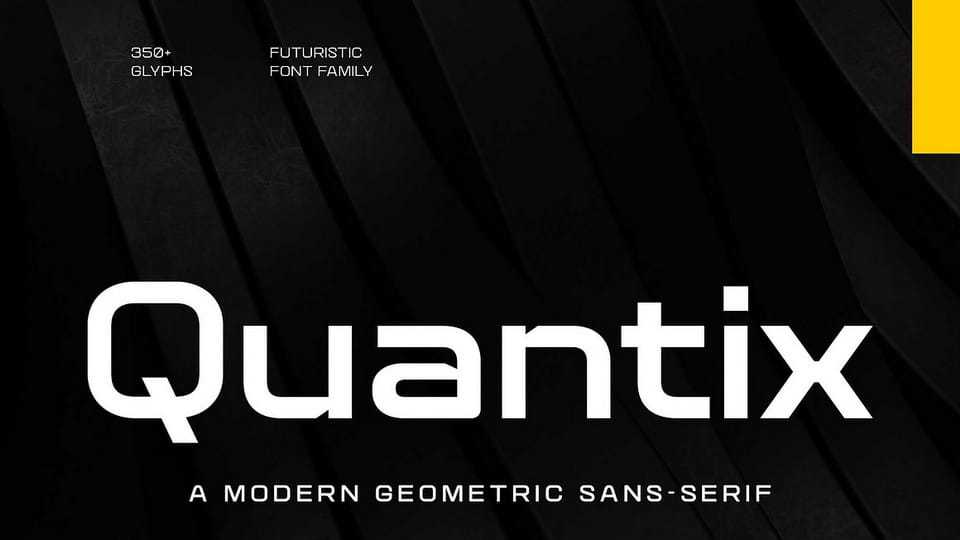
Download Quantix font, a futuristic sans-serif typeface designed with wide and squarish proportions. Available in 7 weights, it elevates techno-futuristic and sporty designs alike.